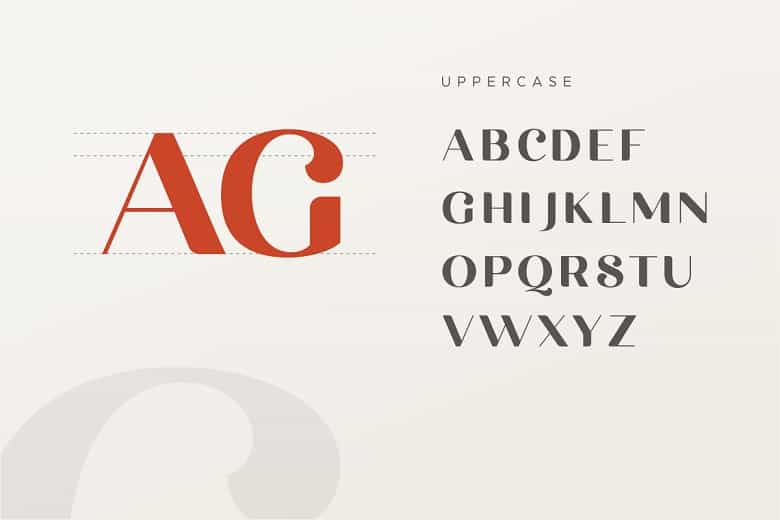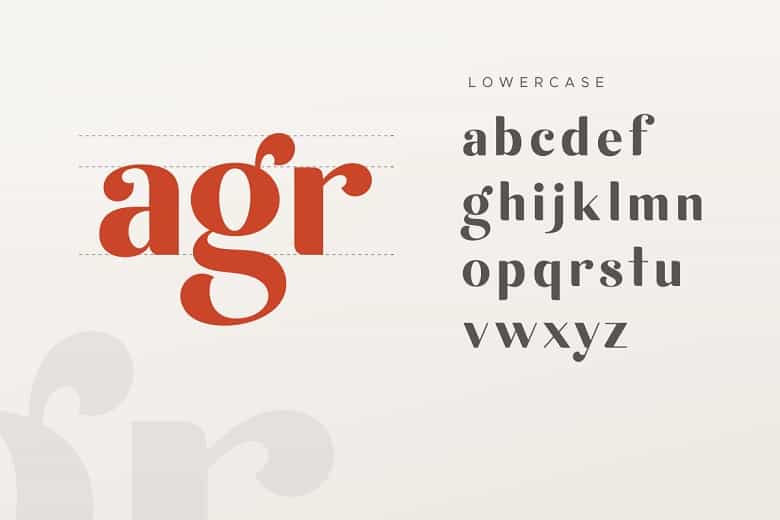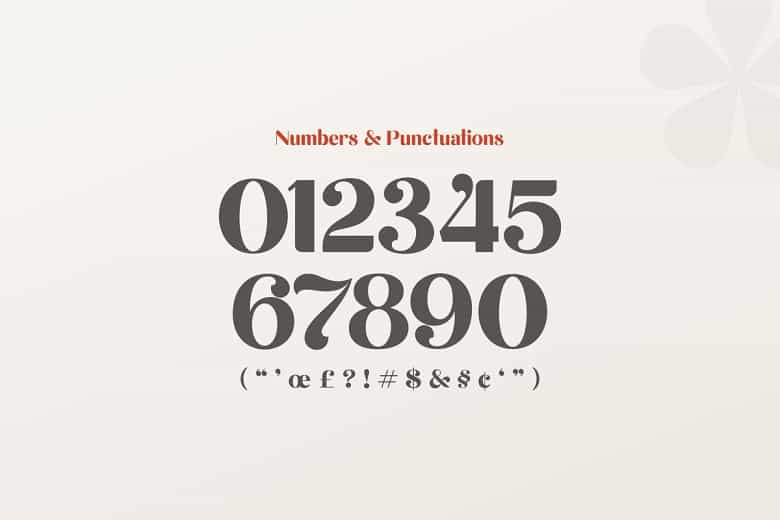
Michael is a beautiful display font with modern look and feel to it and gives a fresh look to the text. It is ideal to be used for branding, wedding invitation cards and other cards and may be applicable for some project. This is very good for BRANDING and LOGO DESIGN. The font will give your logos a classy, elegant and definitely a rare style.